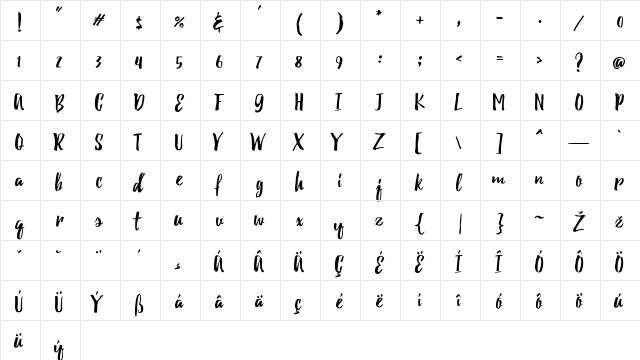
Beacon Script
| Foundry | Beacon |
| Designer | iTypeface.com |
Design Context for Beacon Typeface
Beacon brings a calligraphic fluidity to the page — its connecting strokes and expressive curves give it an unmistakably human quality.